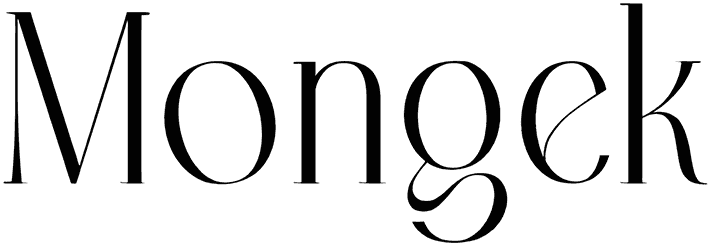
Mongek Font
If you just try an elegant font for your layout, you will see how ravishing it is, and this item can exactly do it. As a serif font with a full cover of characters, it is going to make a professional visual for your luxury dinner party invitation card. Use the Mongek font for your upcoming layouts and highlight your unique taste.